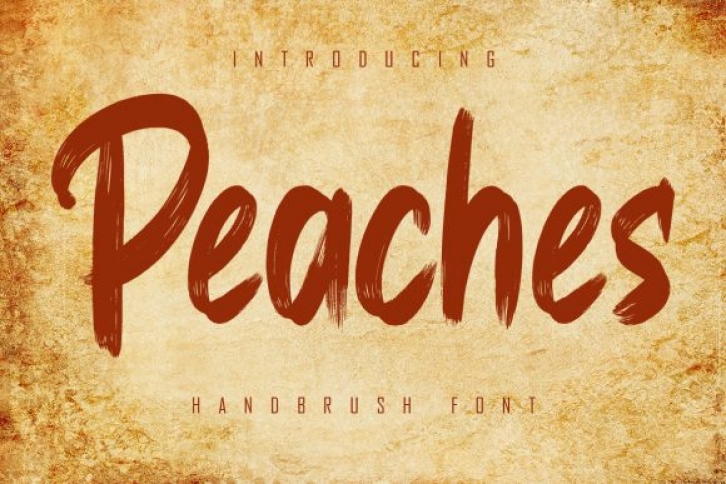
Peaches is a rough textured, brushed display font. No matter the topic, this font will be an incredibly asset to your fonts’ library, as it has the potential to elevate any creation.